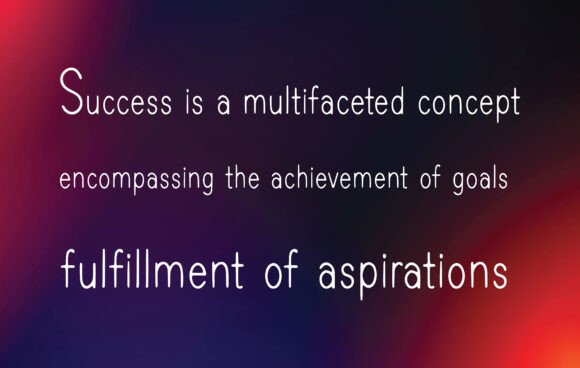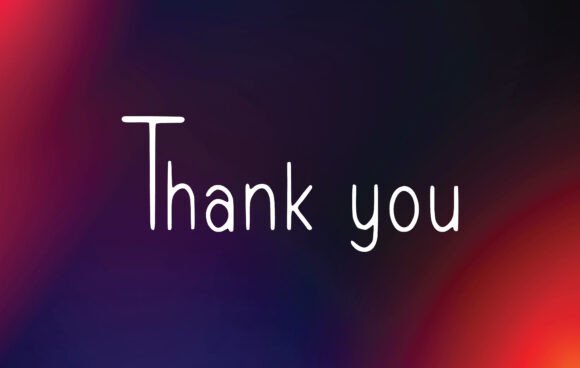
Discover the Beauty of Amelia Font: Elevate Your Creative Projects
Are you a designer, crafty enthusiast, or simply someone who appreciates beautiful typography? Look no further than the stunning Amelia Font. This lovely and beautiful handwritten font has the potential to take your creative ideas to the highest level, making it the perfect choice for a wide range of projects.
What Makes Amelia Font So Special?
Amelia Font is a unique and elegant handwritten font that exudes warmth and sophistication. Its beautiful, flowing script is perfect for creating eye-catching logos, branding materials, and quotes that are sure to capture the attention of your audience. With its classic yet modern feel, Amelia Font is versatile enough to be used in a variety of contexts, from wedding invitations and stationery to social media graphics and marketing materials.
The Benefits of Using Amelia Font
So why choose Amelia Font for your next project? Here are just a few benefits of using this gorgeous font:
- Elegant and Sophisticated: Amelia Font adds a touch of elegance and sophistication to any project, making it perfect for high-end branding and marketing materials.
- Versatile: With its classic yet modern feel, Amelia Font can be used in a wide range of contexts, from formal to informal.
- Easy to Read: Despite its elegant script, Amelia Font is easy to read, making it perfect for body text and quotes.
- Unique: Amelia Font is a one-of-a-kind font that will help your project stand out from the crowd.
How to Use Amelia Font in Your Projects
Amelia Font is incredibly easy to use and can be incorporated into a variety of projects. Here are a few ideas to get you started:
- Logos and Branding: Use Amelia Font to create a stunning logo or branding materials that will help your business stand out.
- Wedding Invitations and Stationery: Add a touch of elegance to your wedding invitations, stationery, and other paper goods with Amelia Font.
- Social Media Graphics: Use Amelia Font to create eye-catching social media graphics that will help your brand stand out.
- Marketing Materials: Incorporate Amelia Font into your marketing materials, such as brochures, flyers, and posters, to add a touch of sophistication.
Tips for Getting the Most Out of Amelia Font
To get the most out of Amelia Font, here are a few tips to keep in mind:
- Experiment with Different Sizes: Amelia Font looks great in a variety of sizes, so don’t be afraid to experiment to find the perfect size for your project.
- Pair with Other Fonts: Amelia Font pairs well with a variety of other fonts, so try pairing it with a bold font for headings or a clean font for body text.
- Use it Sparingly: While Amelia Font is beautiful, it can be overwhelming if used too much. Use it sparingly to add a touch of elegance to your project.
In conclusion, Amelia Font is a beautiful and versatile handwritten font that has the potential to take your creative ideas to the highest level. With its elegant and sophisticated script, Amelia Font is perfect for creating eye-catching logos, branding materials, and quotes that are sure to capture the attention of your audience. Whether you’re a designer, crafty enthusiast, or simply someone who appreciates beautiful typography, Amelia Font is a must-have font for any project.